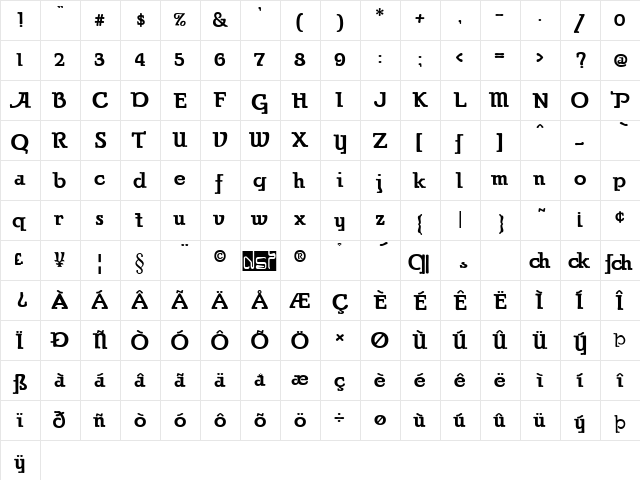
Parsons Alternate Regular
Design Context for Parsons Alternate Typeface
Parsons Alternate takes a measured approach to typography — its balanced proportions and neutral character make it a reliable workhorse for both digital and print work.